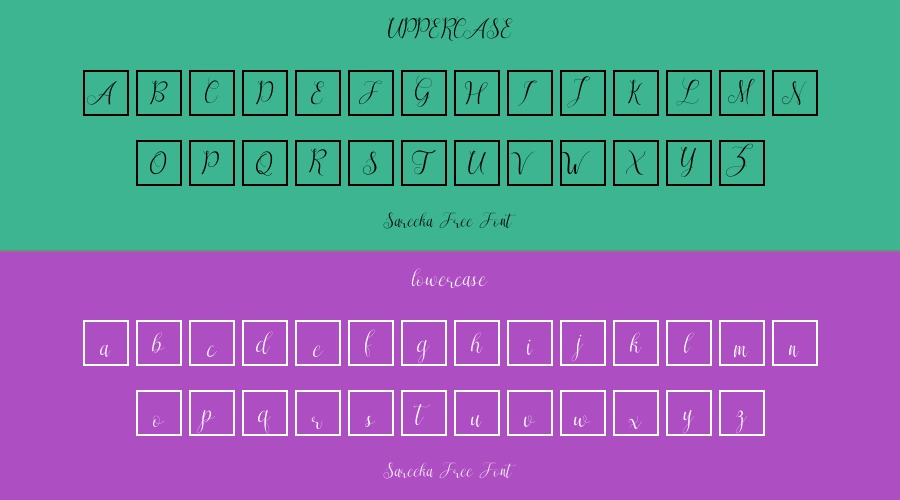
About Sareeka Free Font
Sareeka Free Font stands out for its distinctive combination of rhythmic patterns and system consistency. Ideal for event branding, it provides the reliability and aesthetic excellence that professional projects demand. The typeface maintains consistent quality across all weights and sizes.
Key features include refined pen-inspired details and practical mid-word alternates, enhancing typographic expression. In page numbers applications, Sareeka Free Font demonstrates exceptional scanning accuracy. The ear formation and cultural resonance contribute to its distinctive character and professional appeal.